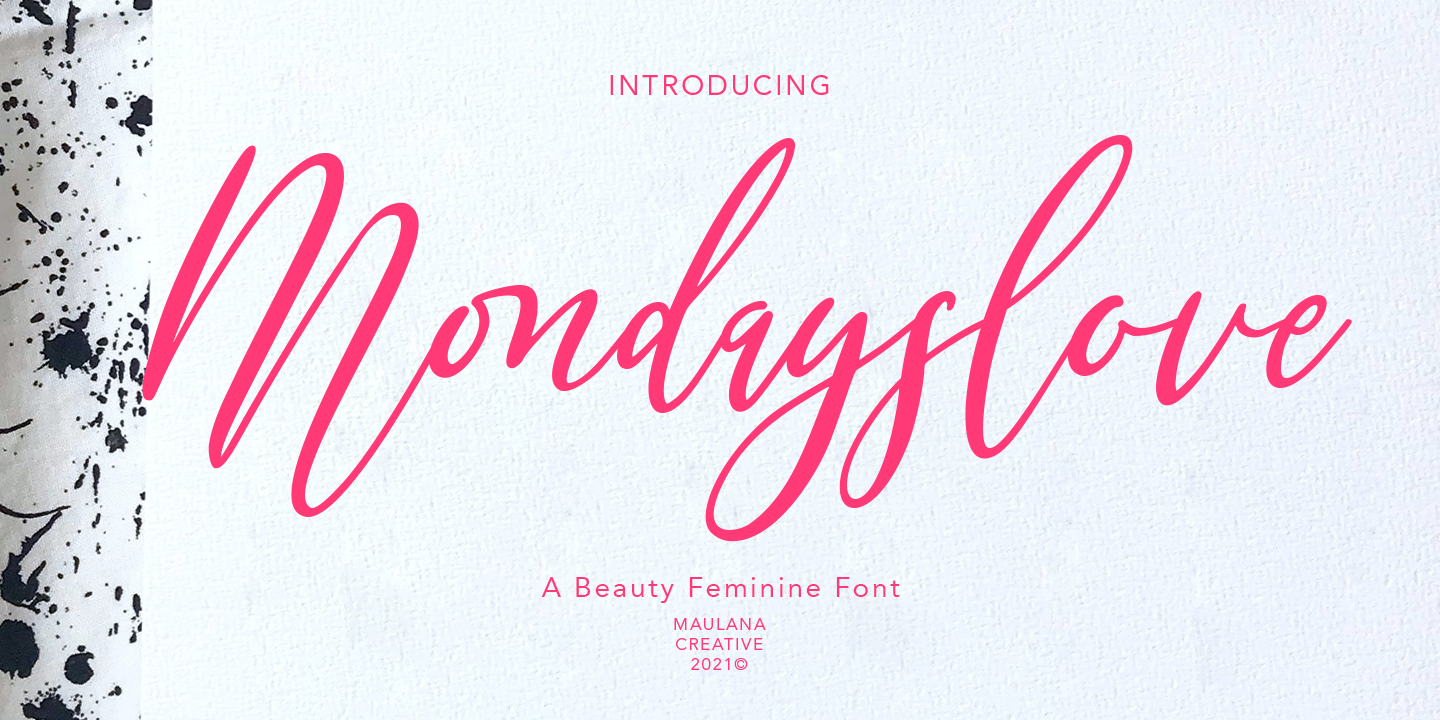
This cheerful script font is perfect for motivational branding, wellness campaigns, positive lifestyle marketing, mood-boosting product packaging, inspirational quote designs, self-care brand identity, mental health awareness materials, and uplifting design projects that transform Monday blues into Monday love.
Mondayslove Font is exciting because it captures the magic of finding joy in new beginnings with its optimistic letterforms that radiate warmth and transform ordinary Mondays into extraordinary opportunities. The font delivers motivational energy that inspires positive mindset shifts.
The Mondayslove Font family includes regular and bold versions with motivational decorative elements, heart symbols, and positivity ornaments, providing designers with comprehensive tools for creating uplifting typography that spreads Monday motivation.
Ready to fall in love with Mondays? Mondayslove Font Free Download offers designers joyful letterforms that sparkle with optimism and weekly renewal energy. This inspiring typeface combines motivational aesthetics with professional functionality, making it ideal for wellness brands, lifestyle coaches, and positivity-focused campaigns. Whether you're designing motivational posters, wellness app interfaces, or self-care product packaging, this font delivers heartwarming appeal. The lovingly crafted characters feature cheerful curves while maintaining excellent readability across motivational applications. Perfect for businesses in wellness, coaching, mental health, and lifestyle sectors that celebrate positive transformation and weekly fresh starts. The font's loving construction creates memorable brand recognition that resonates with motivation seekers worldwide. Each letter showcases deliberate joy that mirrors the beautiful potential of embracing new weeks with love. Download today and transform your creative projects with weekly magic using this premium script font that transforms ordinary text into extraordinary expressions of Monday motivation and the heart-warming spirit of Mondayslove Font Free Download positivity.